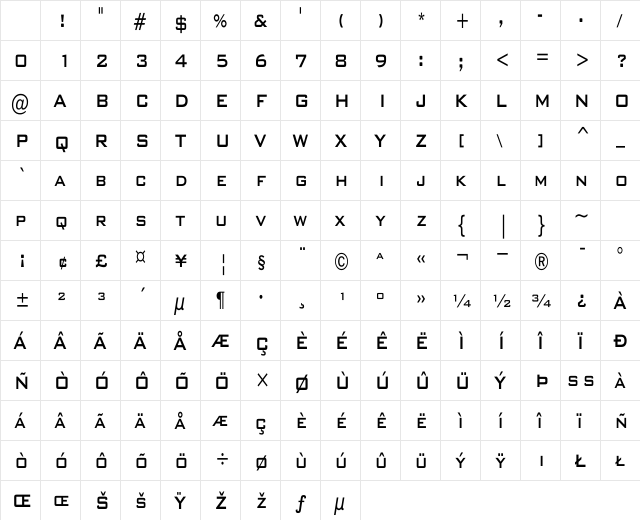
Complete BankGothicCondensed Bold glyph index. Displaying only characters natively supported by BankGothicCondensed Bold font.
BankGothicCondensed takes a clean, functional approach - its unadorned letterforms prioritise legibility and work reliably across screen and print environments. Its bold stroke weight gives it real presence on the page. Its narrow stance lets it pack a punch even in space-constrained designs.
Font Pairing: Use BankGothicCondensed for headlines alongside a lighter-weight sans or serif for body copy to establish clear visual hierarchy.
Pro Tip: Use BankGothicCondensed tightly set in headlines and banners - its condensed proportions make it ideal for maximum impact in minimum horizontal space.